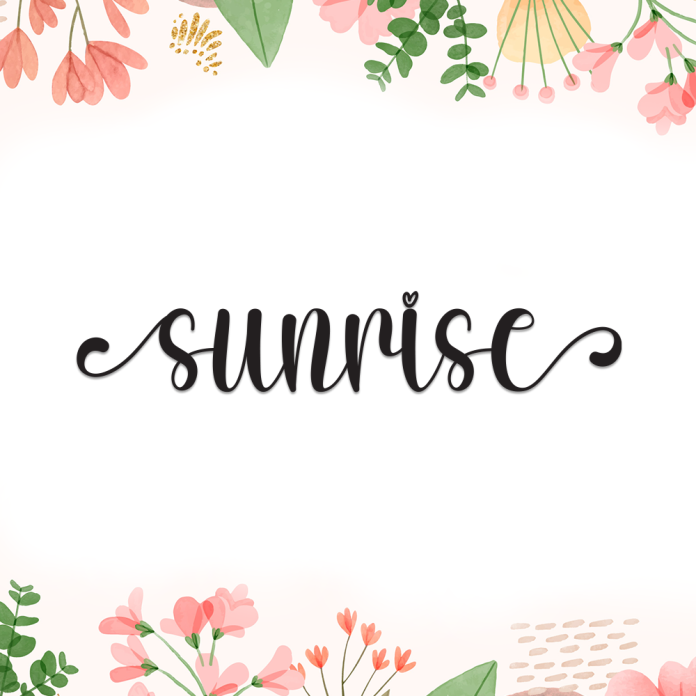
Sunrise is a beautiful handwritten font that captures the warmth and charm of a peaceful morning. With soft, flowing strokes and a natural handwritten look, it adds a personal and heartfelt touch to your designs.
Perfect for quotes, wedding invitations, handmade branding, packaging, journaling, and social media graphics that aim to feel friendly, warm, and aesthetic.
Smooth, natural handwritten style
Soft, friendly letterforms
Evokes warmth and optimism
Start your day with a touch of elegance and creativity using the warm and uplifting Sunrise font.